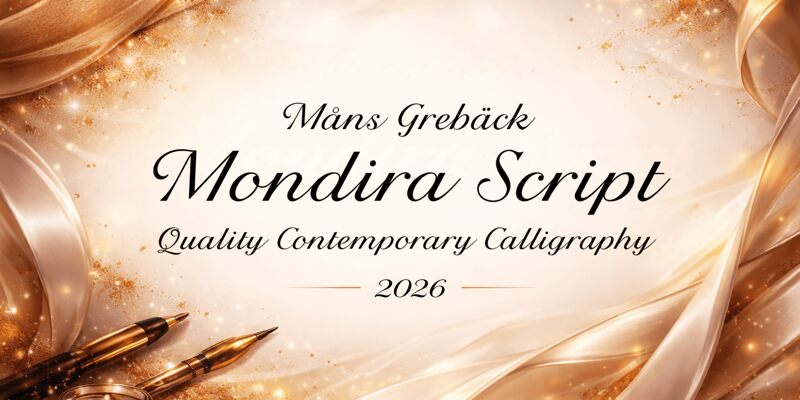
Mondira Script font is a free font designed by Måns Grebäck. With its elegant and flowing style, this calligraphy font adds a sophisticated and ornamental touch to your designs. Inspired by classic charm, Mondira Script enhances a sense of refinement, evoking tradition and timelessness while offering a contemporary application in luxury branding.
Mondira Script is a contemporary calligraphy typeface characterized by a refined, flowing rhythm and a calm sense of balance. The letters exhibit a smooth, deliberate pace, shaped by gentle contrasts and long, confident strokes. Its curves appear soft rather than ornate, maintaining clarity even when the writing becomes expressive.